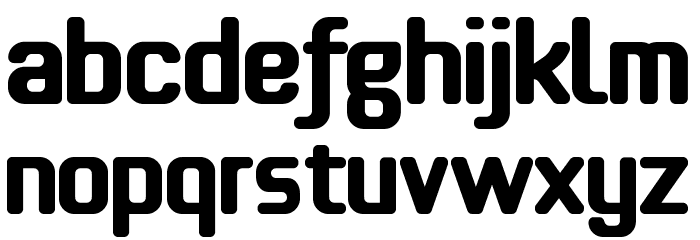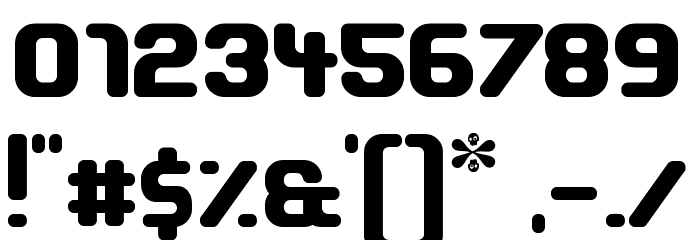
effortless Font
This font features a bold, rounded style with a modern and playful appearance. The characters are uniformly thick, giving a sense of stability and strength. The rounded edges soften the overall look, making it approachable and friendly. The letters are evenly spaced, ensuring readability while maintaining a cohesive visual flow. The numbers and special characters follow the same design principles, integrating seamlessly with the alphabet. This font's design is both functional and aesthetically pleasing, suitable for a variety of creative applications.
A bold, rounded, and modern font with a playful yet stable appearance.
- Proposed Projects: Ideal for branding, packaging, children's books, and playful advertising campaigns.